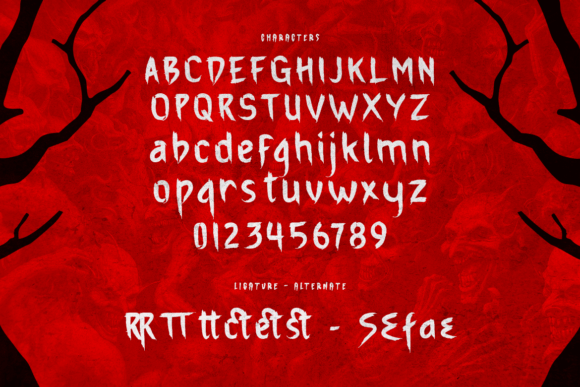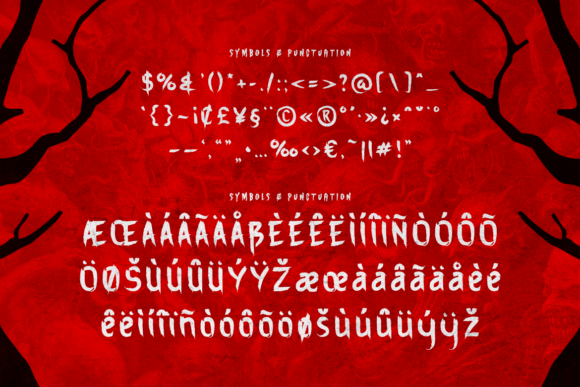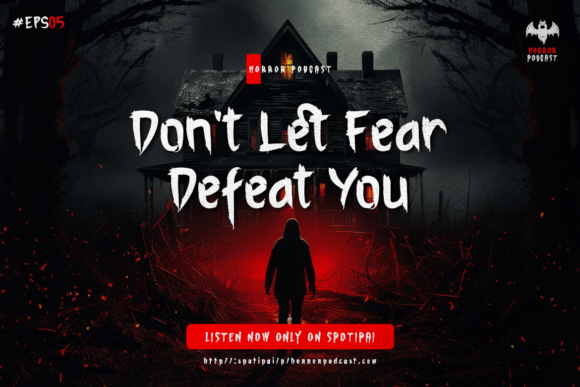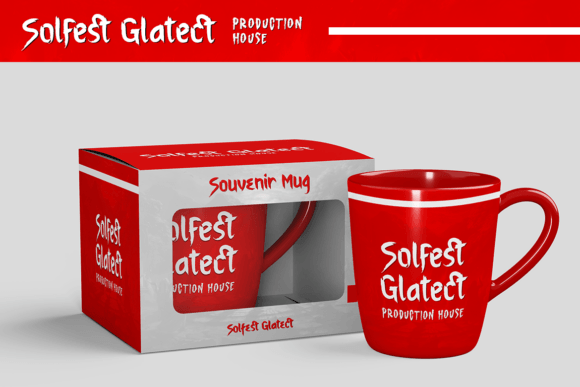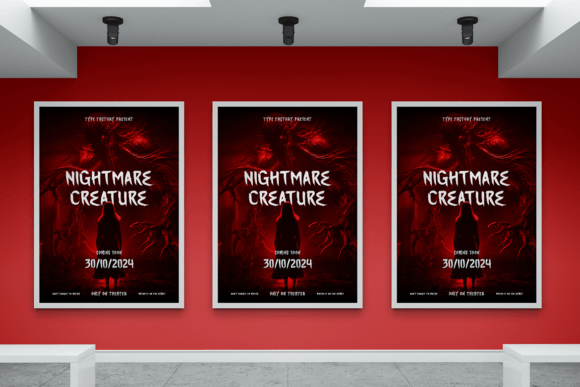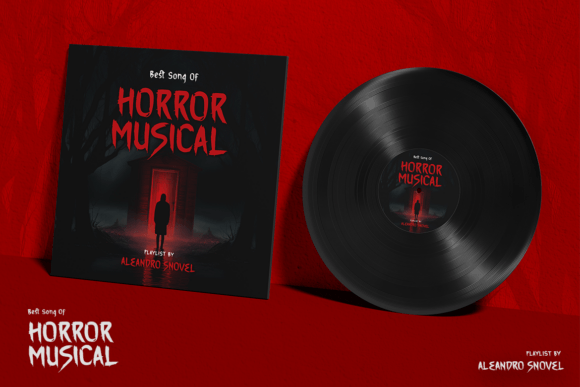
Introduction to Sepattan Font
Immerse into the world of nightmares and suspense with Sepattan, an unsettling horror font.
Its rough around the edges appeal, misshapen letterforms, and uncanny beauty fuse to craft designs touched by the mystique of the macabre Utterly in sync with the spine-chilling essence of the horror genre, Sepattan stands as an indispensable pick for devouring eyes in thirst of dread and mystery.